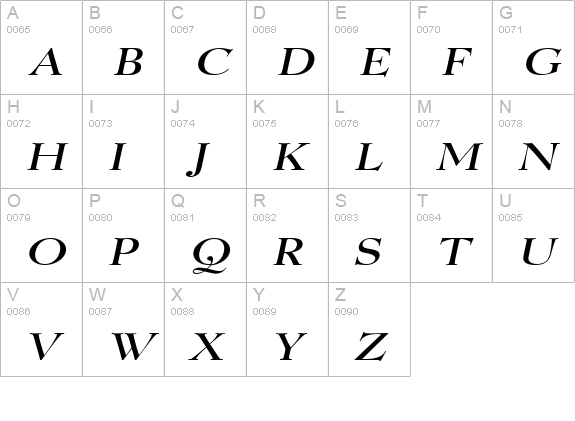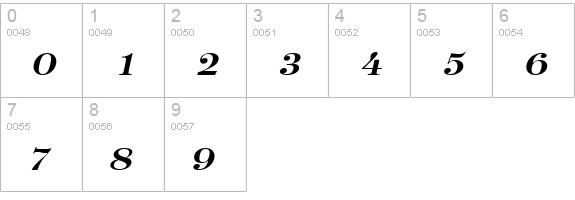
Luciano Wide Italic is a distinctive, extended-width, italic variant in the Luciano typeface family \xE2\x80\x94 well suited to design and typography projects.
Luciano Wide Italic font is a stunning display typeface that exudes elegance and sophistication. With its bold and italic design, this font is perfect for making a strong statement in your design projects. The wide letterforms give a modern and dynamic touch to any text, making it stand out from the crowd. But the best part? Luciano Wide Italic font is completely free to download at FontsMarket.com. That's right, you can enhance your designs with this beautiful font without spending a dime. Whether you're working on branding, advertising, or any other creative project, Luciano Wide Italic font will add a touch of class and style. Don't miss out on this fantastic opportunity to elevate your designs with this free and fabulous font.